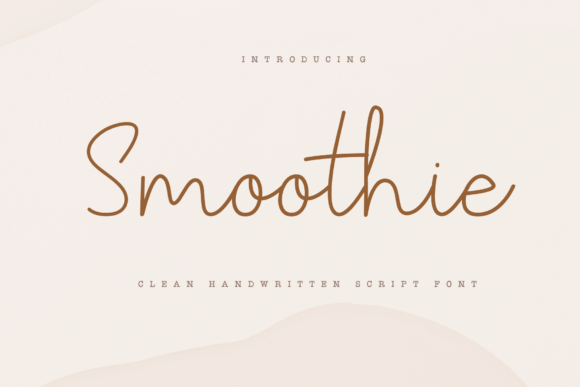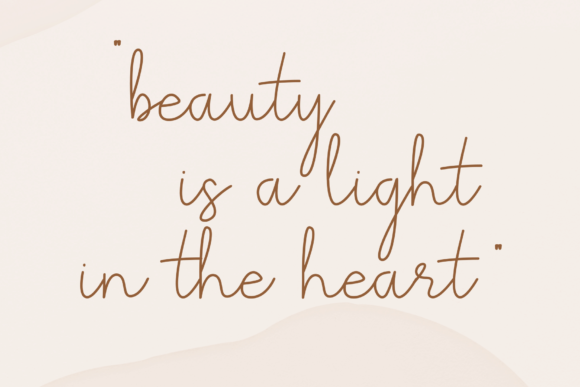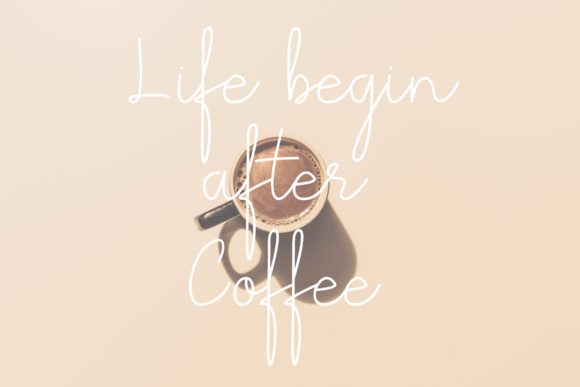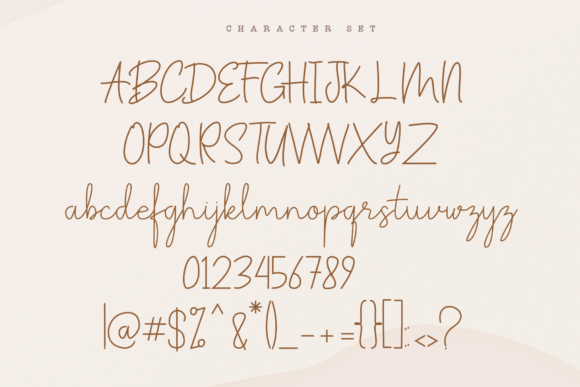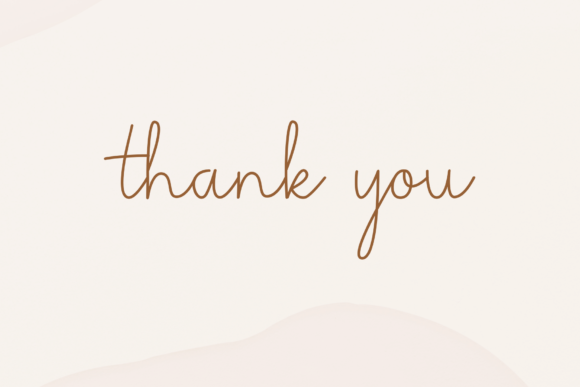
Smoothie Font
About Smoothie Font
Smoothie is a delightful and elegant handwritten font that adds a touch of sophistication and freshness to a wide range of design projects. With its thin and clean letterforms, Smoothie is designed to bring a beautiful and refined aesthetic to your creations.
The font’s thin lettering gives it a delicate and graceful appearance, making it well-suited for projects that require a sense of elegance and subtlety. Whether you’re working on branding, invitations, packaging, or any other design where a clean and polished look is desired, Smoothie can elevate your designs and create a lasting impression.
Smoothie’s handwritten style adds a personal and authentic touch to your projects. It exudes a sense of creativity and individuality that resonates with viewers and adds a human element to your designs. This makes it a perfect choice for projects that require a genuine and approachable feel, such as social media graphics, personal blogs, or handmade product labels.
The font’s refreshing look is well-captured by its name, making it an excellent choice for projects related to wellness, health, food, and beverages. Smoothie’s clean and airy appearance aligns with concepts of freshness and vitality, making it a natural fit for designs related to smoothie bars, organic products, and healthy lifestyle brands.
Smoothie’s versatility is evident in its ability to shine across various contexts. From wedding invitations that require an elegant and timeless touch to minimalist packaging designs that demand simplicity and sophistication, Smoothie adapts effortlessly to different design requirements.
Its thin letterforms and clean lines allow it to harmonize with a wide range of design elements, making it a valuable asset for any designer’s toolkit. Whether you’re creating digital designs or printed materials, Smoothie’s refined look ensures that your projects will have a sleek and polished appearance.
In summary, Smoothie is a thin lettered and clean handwritten font that adds a touch of elegance and freshness to a variety of design contexts. Its delicate appearance, personal charm, and adaptability make it a versatile choice for branding, invitations, packaging, and more, allowing your designs to stand out with a beautiful and refined aesthetic.